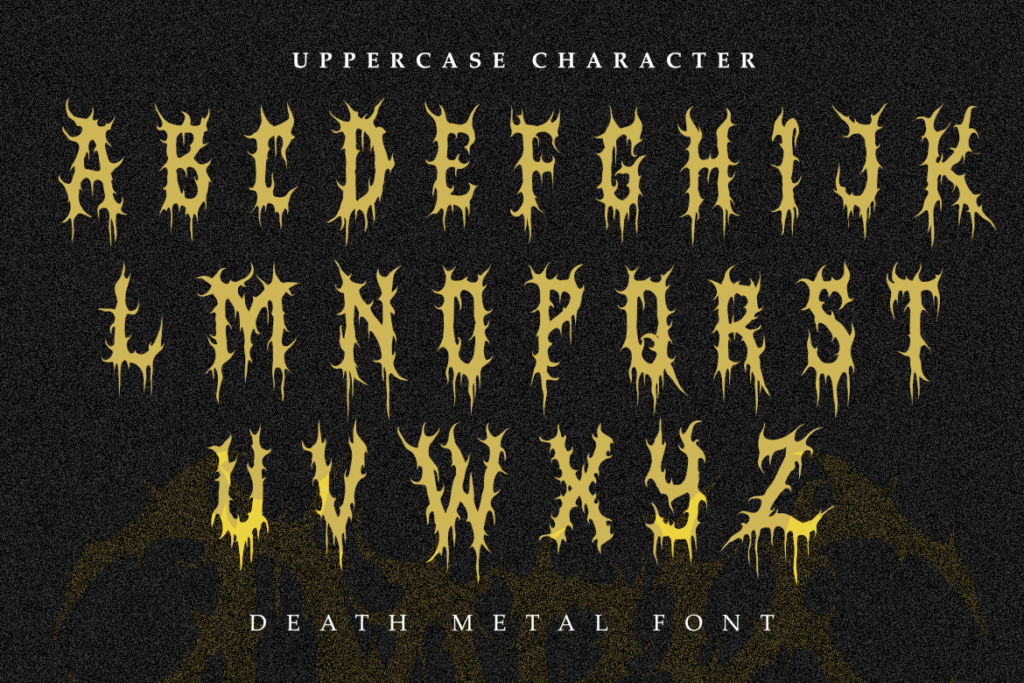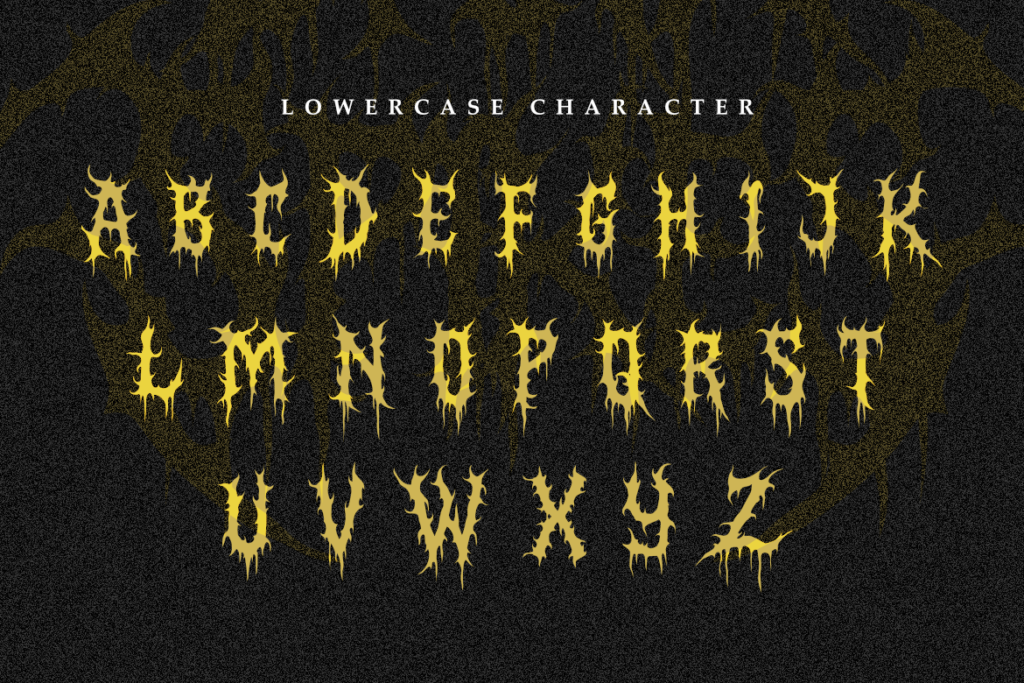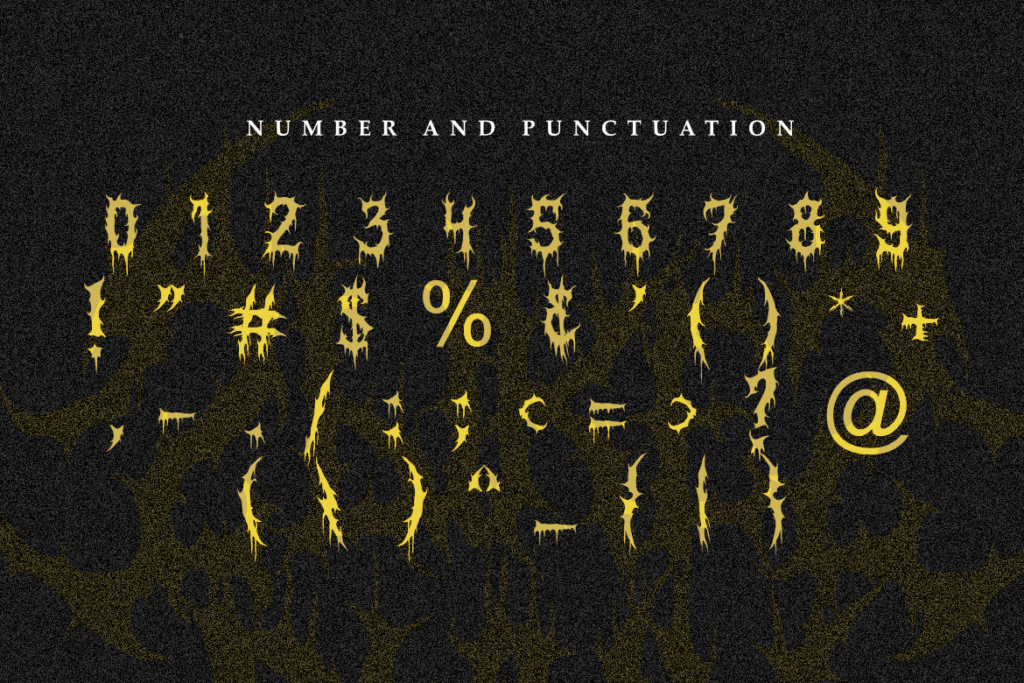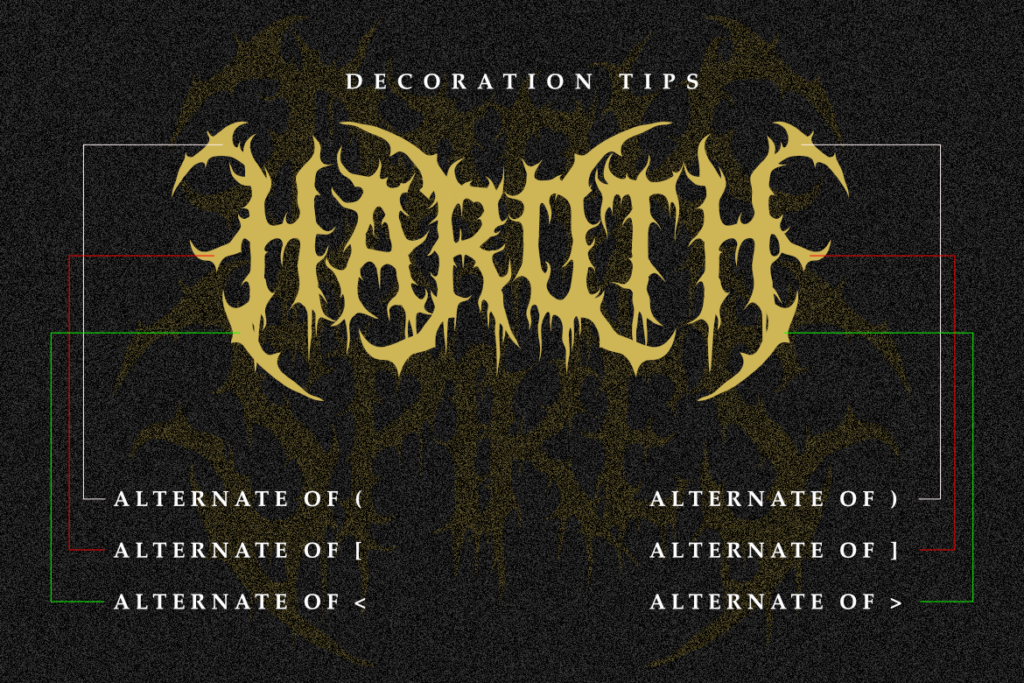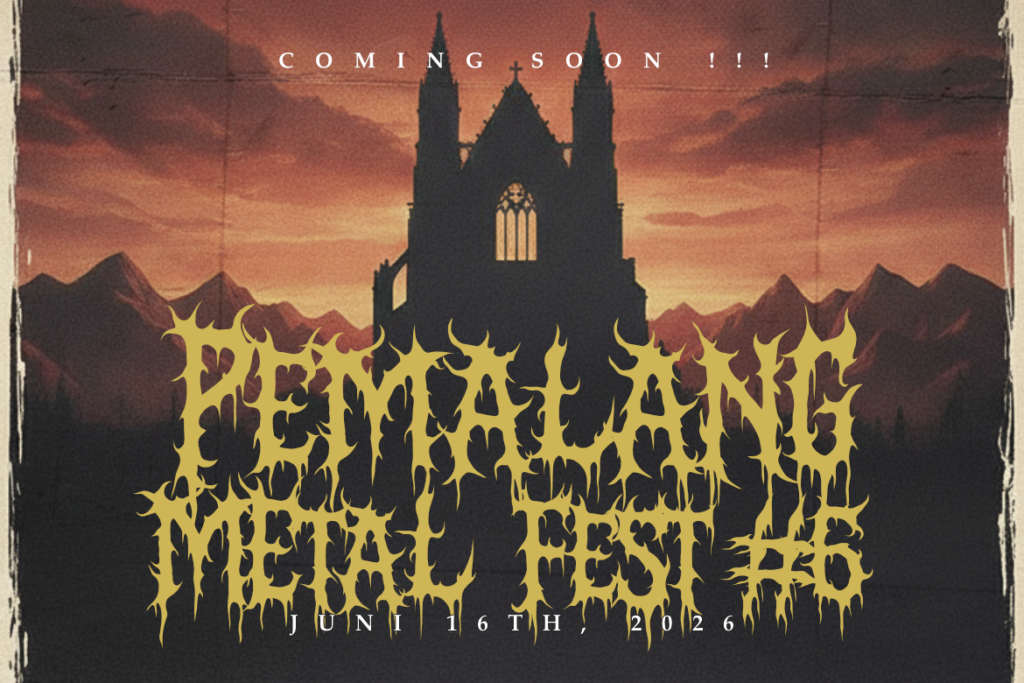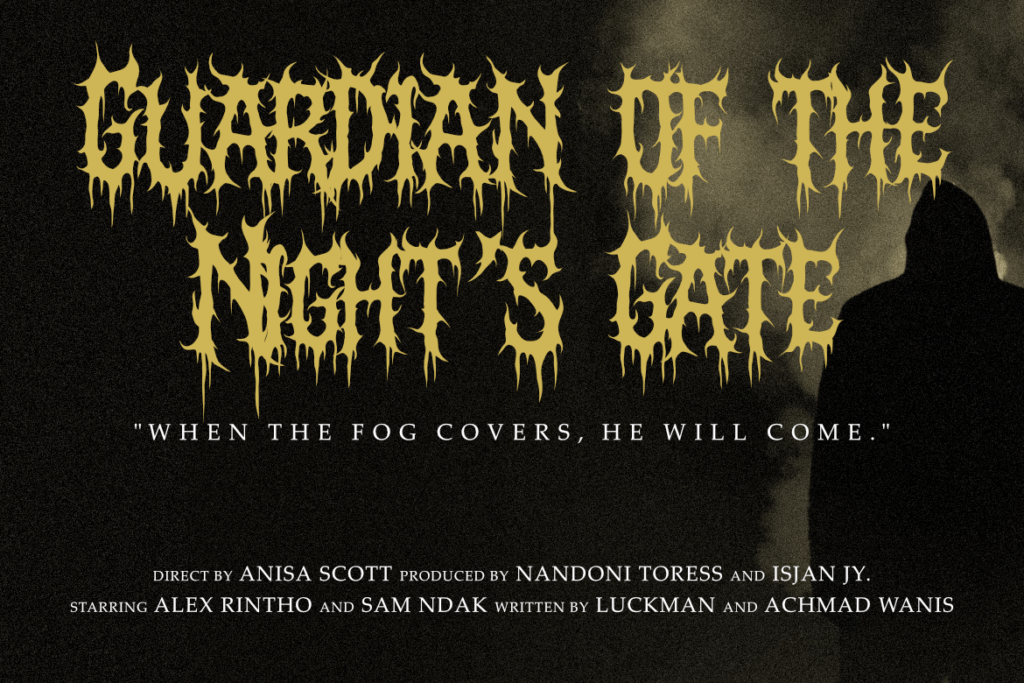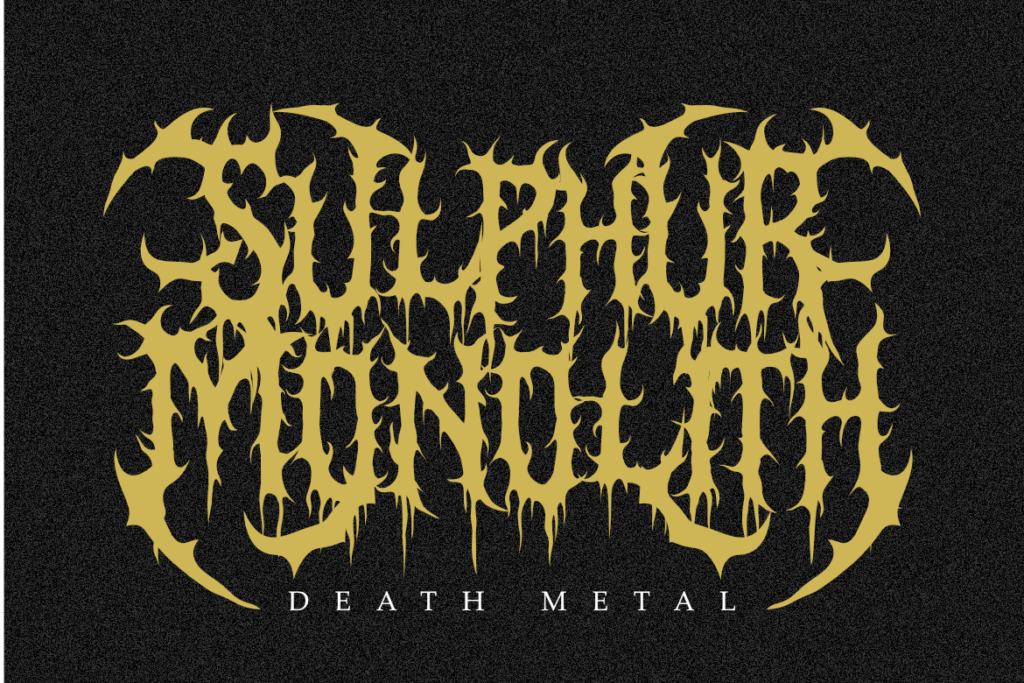
Display typeface · Latin
Dark Spikes
Brutal Death Metal Font for Band Logos, Album Covers & Extreme Branding Dark Spikes is a raw, aggressive display font inspired by the extreme aesthetics of death metal and underground music culture. Featuring sharp, thorn-like letterforms and organic textures, this font captures the chaotic energy of brutalist design. Perfect for band logos, extreme sports branding, horror movie titles, and concert posters. Dark Spikes ensures your design screams with intensity and dark atmosphere. Main Features: Authentic Death Metal & Black Metal aesthetic. Aggressive, sharp, and spikey letterforms. High-detail organic strokes. Perfect for logos, metal branding, and posters. What’s Included: Dark Spikes.otf Dark Spikes.ttf